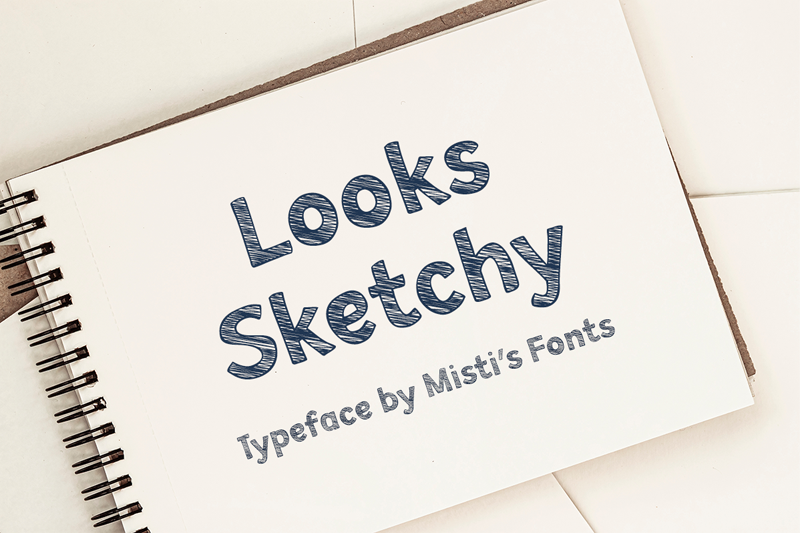
Font name: | Looks Sketchy |
Introducing �Looks Sketchy� � the font that brings a dash of whimsy and a sprinkle of delight to every design! This sketch-style sans serif typeface is expertly crafted to add a playful, hand-drawn touch to your project. With its quirky character and light-hearted appeal, �Looks Sketchy� is perfect for designers looking to infuse a bit of fun and creativity into their work. Terms of Use and Commercial Licensing: https://mistifonts.com/looks-sketchy/ |